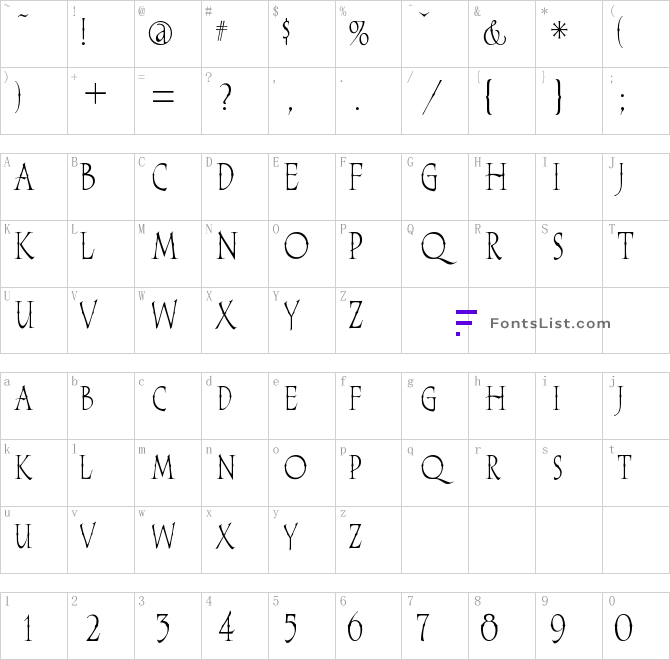
- Font Name:A&S Sarsaparilla
A-S-Sarsaparilla.ttf is a very beautiful artistic font, A-S-Sarsaparilla.ttf is widely used in the design and printing of various books and pictures,A-S-Sarsaparilla.ttf has a strong visual impact,A-S-Sarsaparilla.ttf is a commonly used font in newspapers, magazines and books, and is used in posters, e-commerce Poster design, store design, logo design, font design and other fields.A-S-Sarsaparilla.